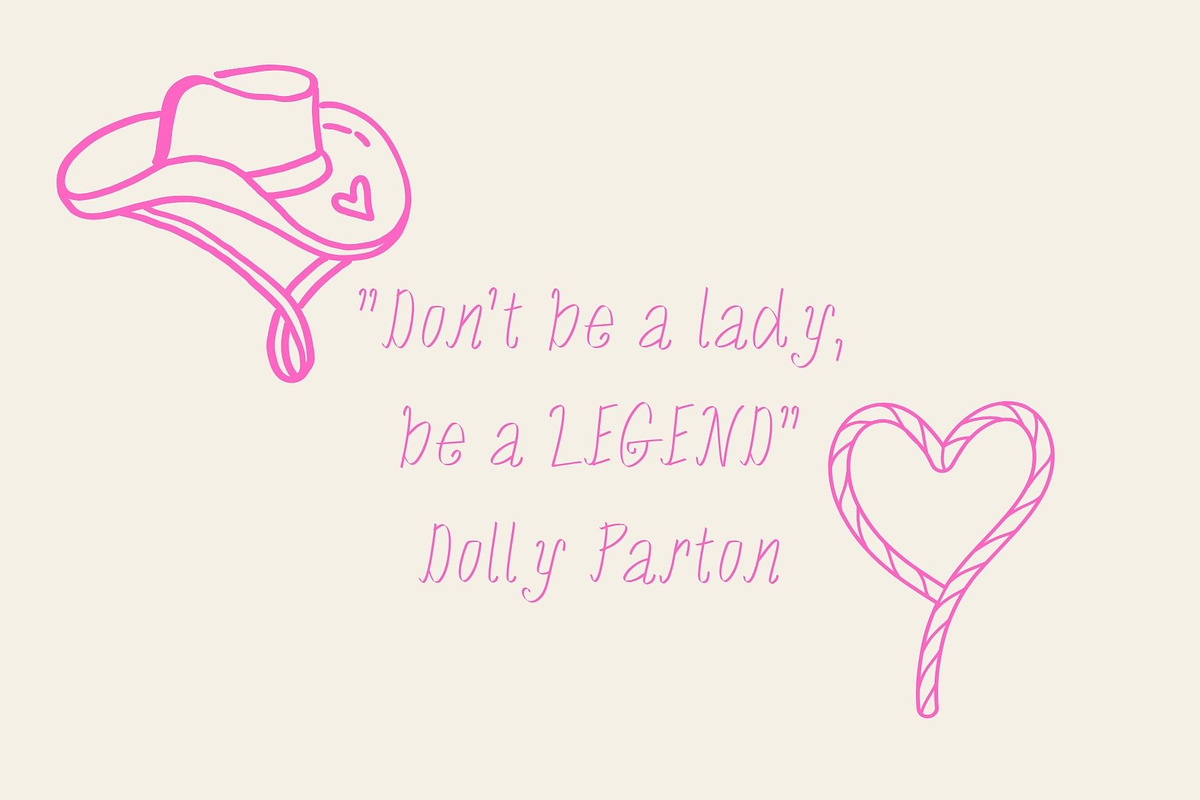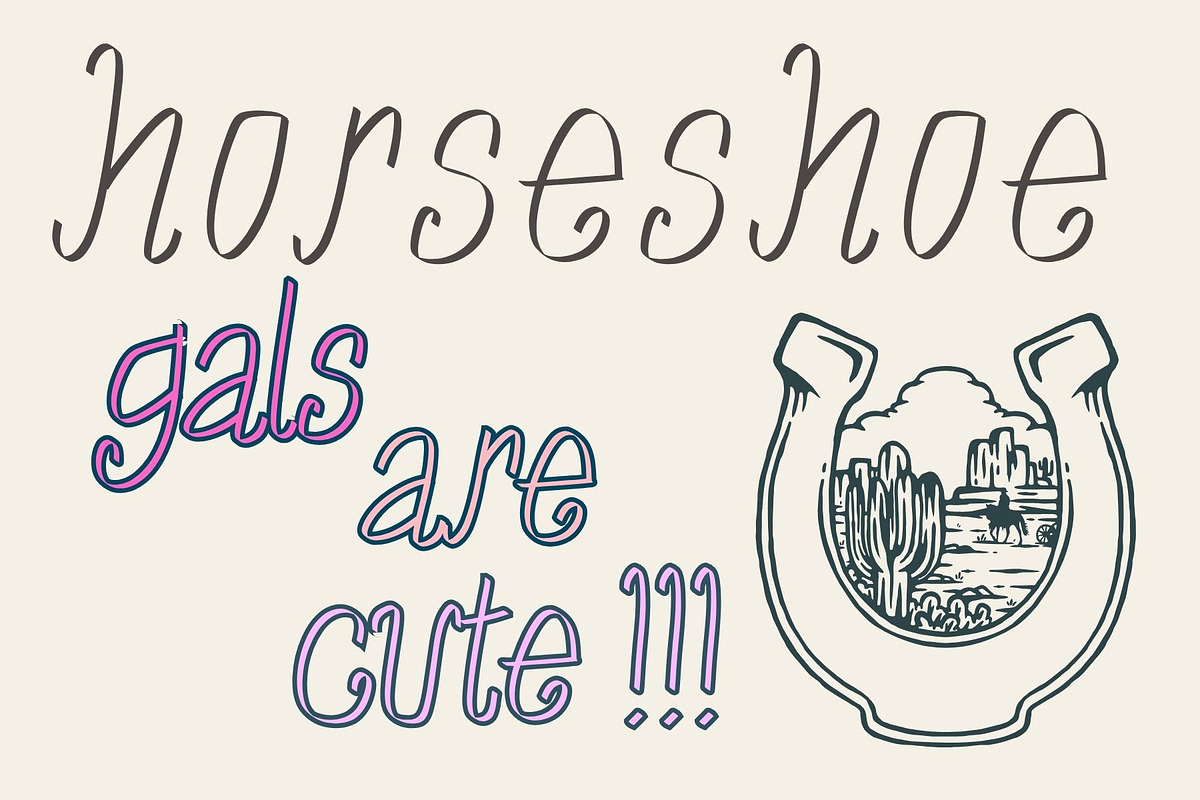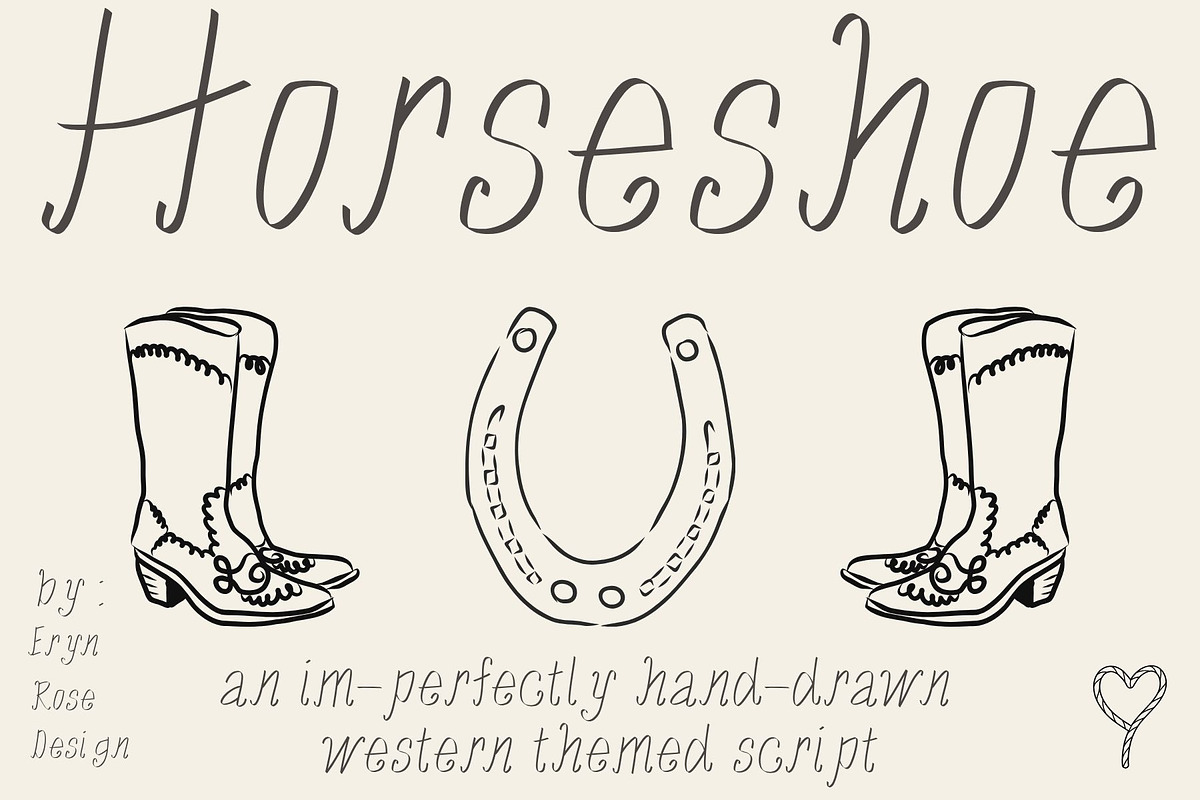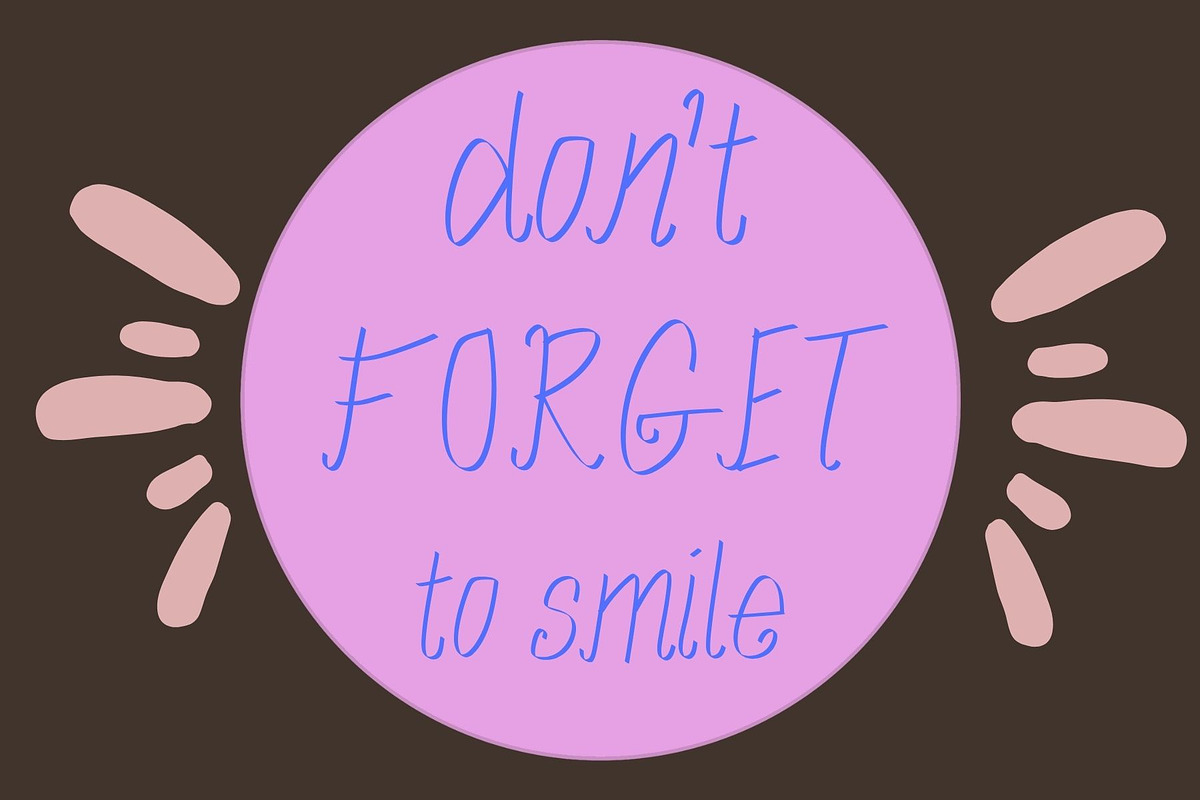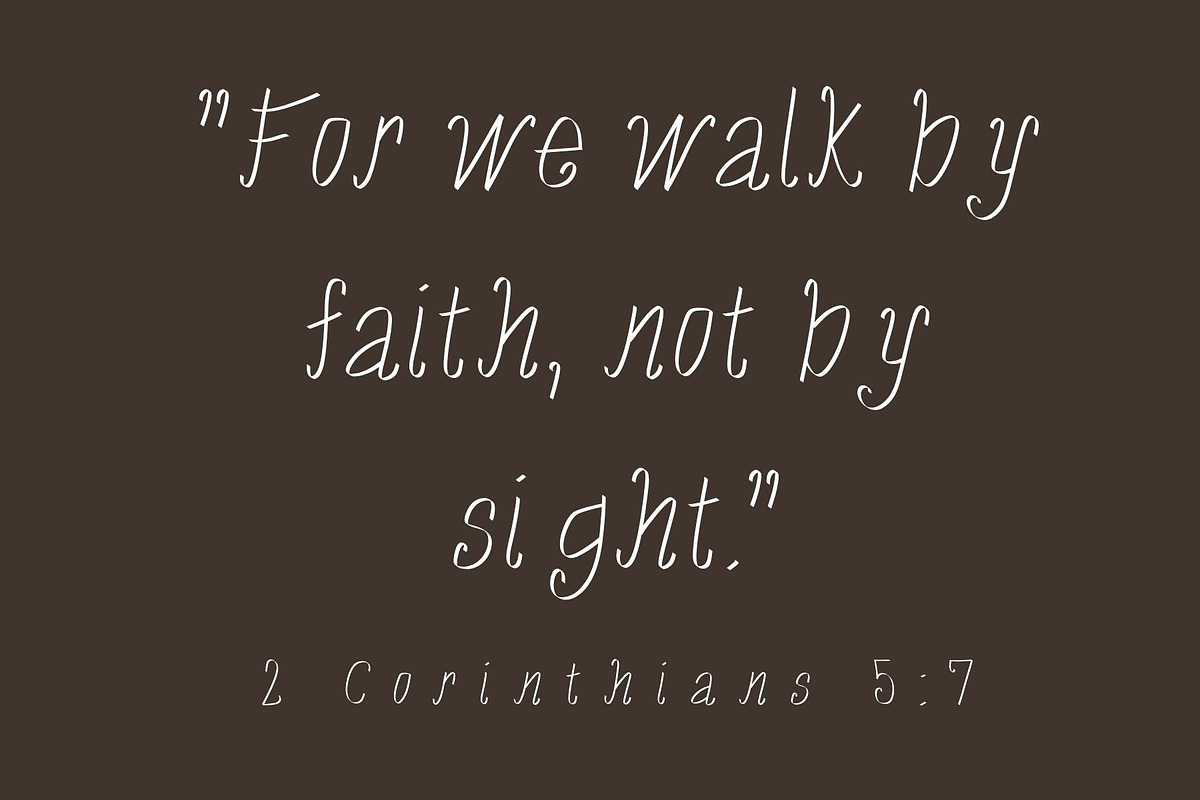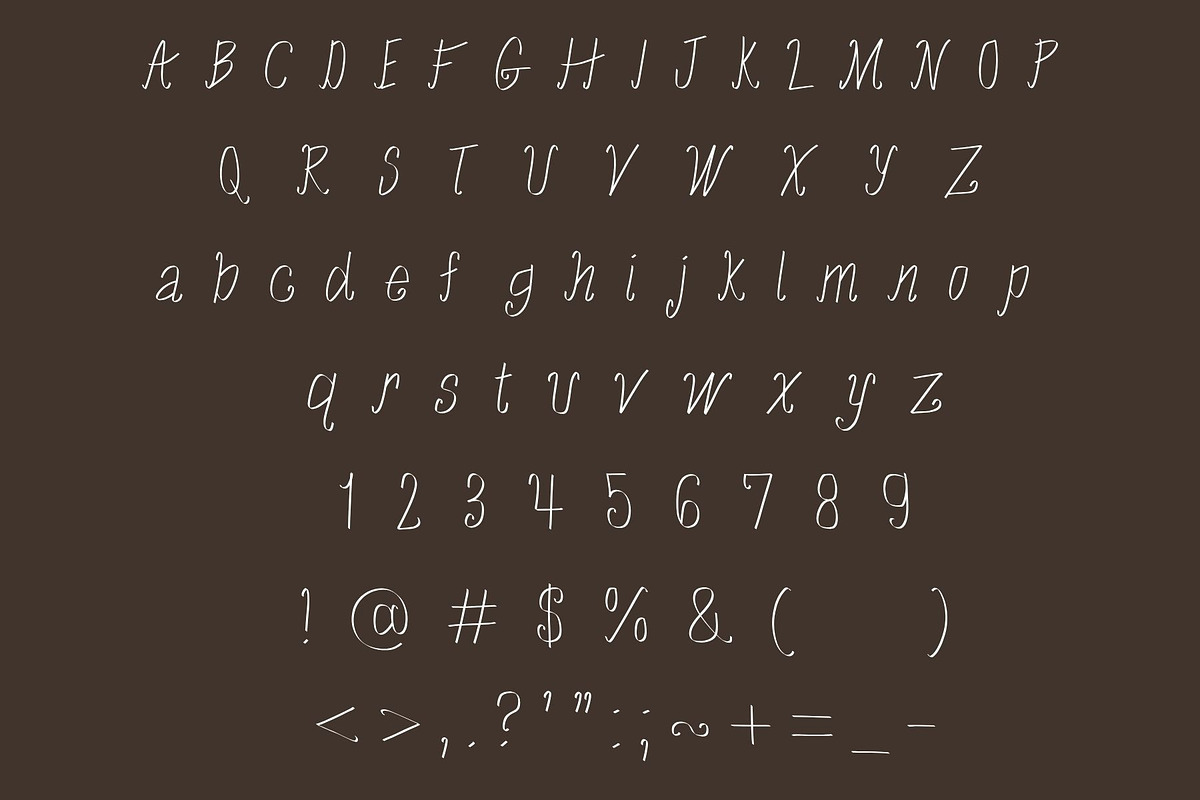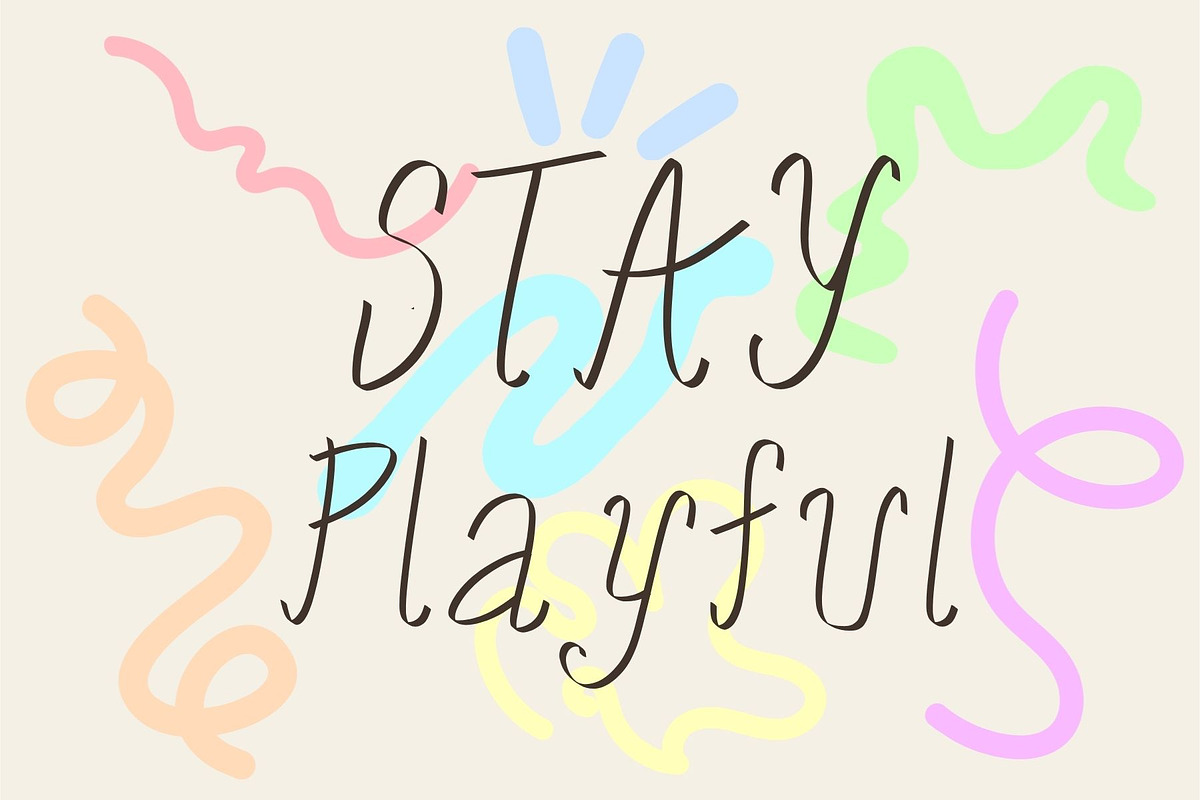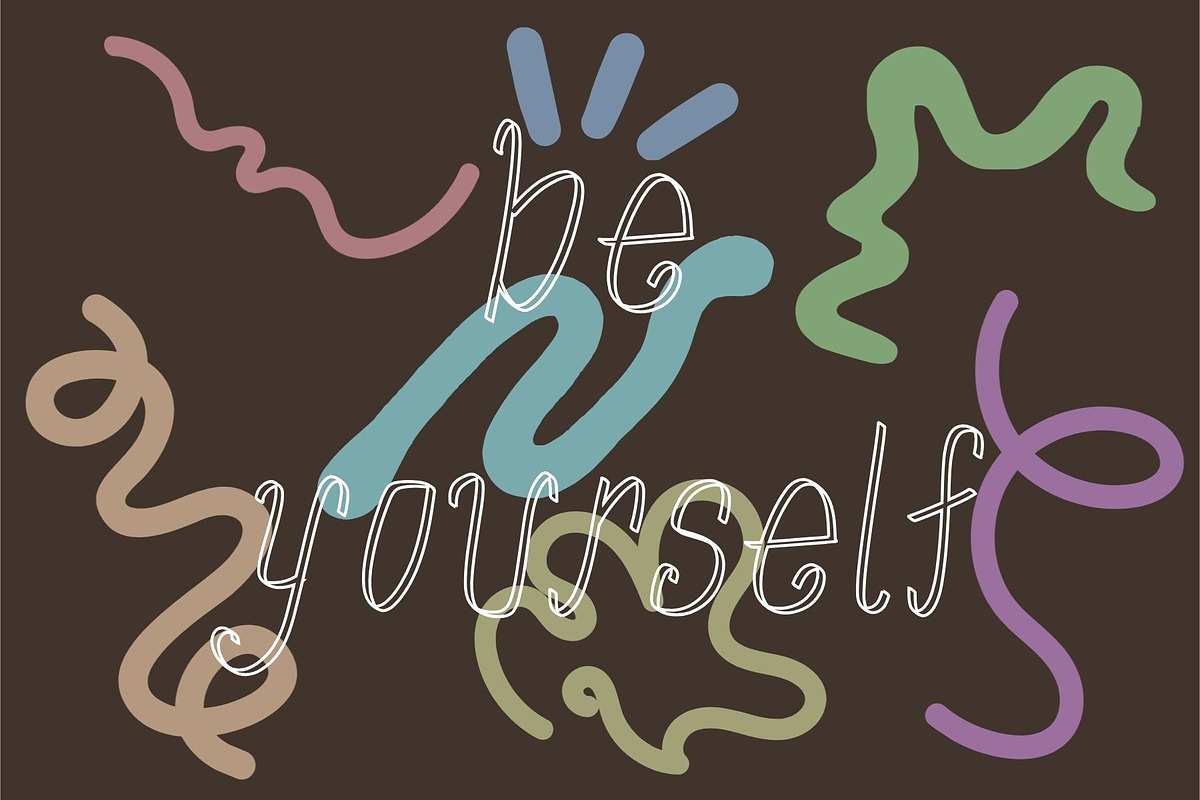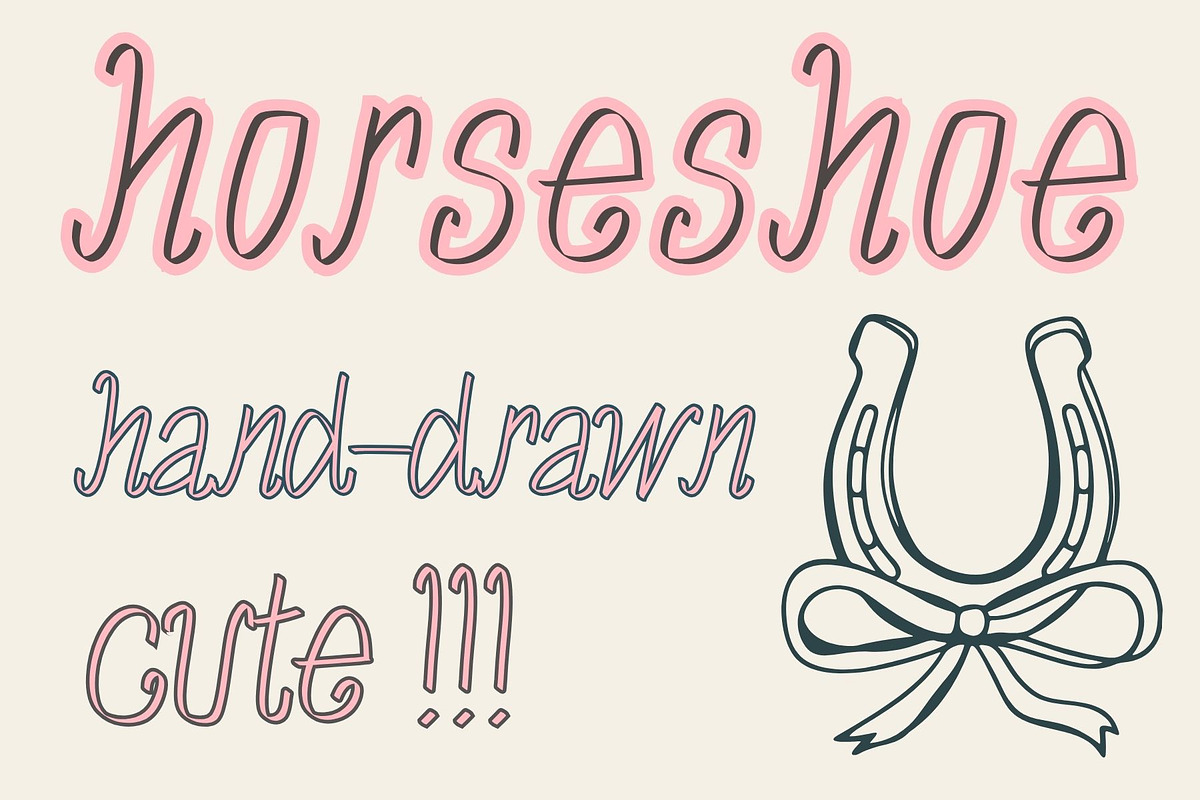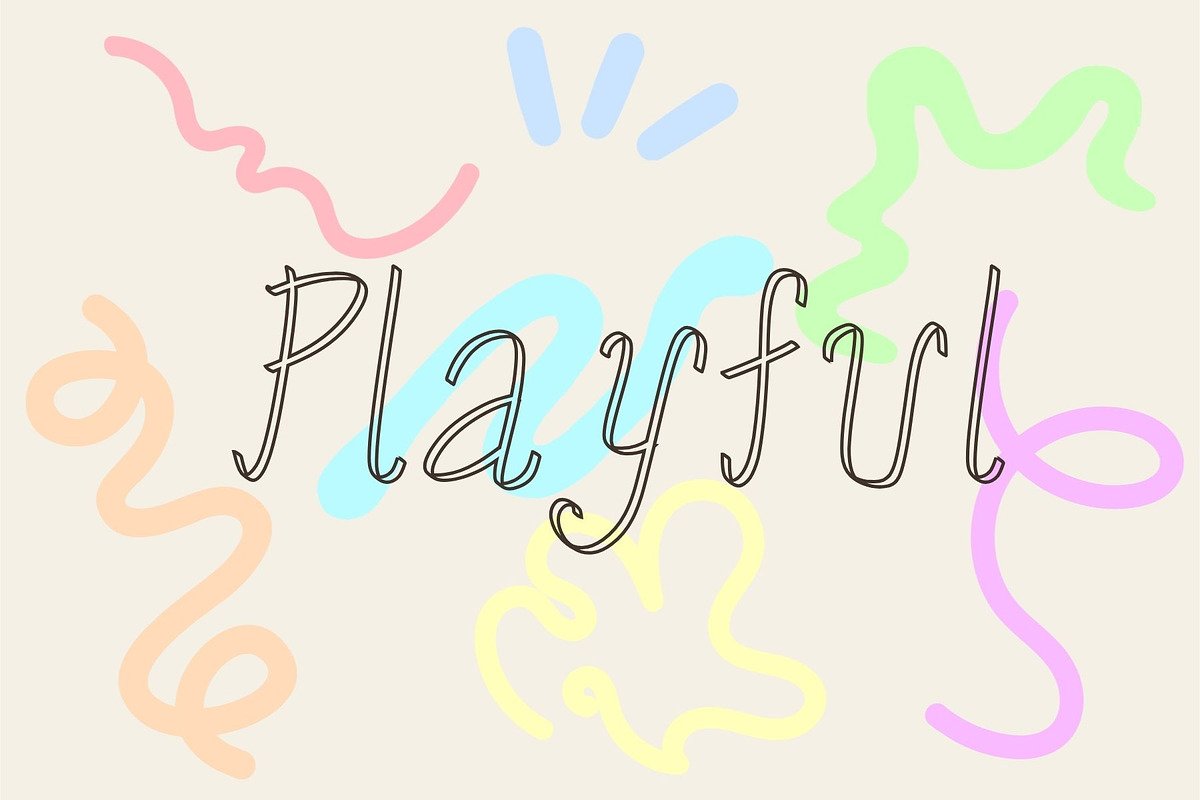
Horseshoe Thin, a western script
full alphabet, numbers, and symbols
Horseshoe Thin , is a girly western themed script with "horseshoe" curves and details.